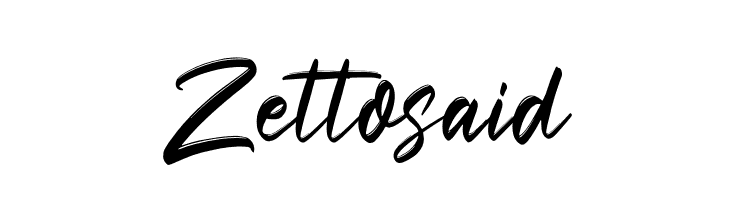
A dynamic handwritten font with fluid, expressive strokes and a casual appearance.
A dynamic script font with fluid, cursive strokes and a handwritten feel.
A lively and elegant script font with flowing, cursive letterforms.
A dynamic and expressive handwritten font with fluid strokes and artistic flair.
A bold, expressive script font with a handwritten, fluid style.
A playful, handwritten script font with dynamic, looping strokes.
A playful, handwritten script font with smooth, fluid strokes.